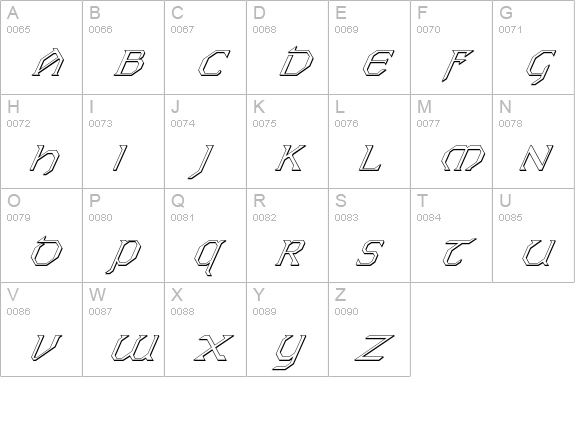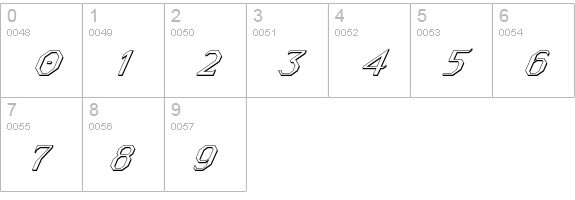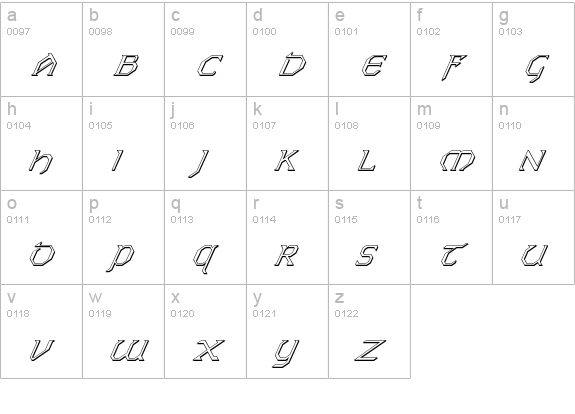
FZ JAZZY 31 3D ITALIC Font Details
FZ JAZZY 31 3D ITALIC is a distinctive, italic variant in the FZ typeface family \xE2\x80\x94 well suited to design and typography projects.
Introducing FZ JAZZY 31 3D ITALIC font - a dynamic and eye-catching typeface that exudes a sense of modernity and creativity. Its bold 3D effect and sleek italicized design make it stand out in any project, whether it's for branding, advertising, or graphic design. This unique font offers a perfect blend of elegance and edginess, making it ideal for adding a touch of flair to your text. Its stylish appearance and playful vibe make it suitable for a variety of uses, from posters and flyers to social media graphics and website headers. The best part? FZ JAZZY 31 3D ITALIC font is available for free download at FontsMarket.com. So go ahead and elevate your designs with this captivating and versatile typeface today!